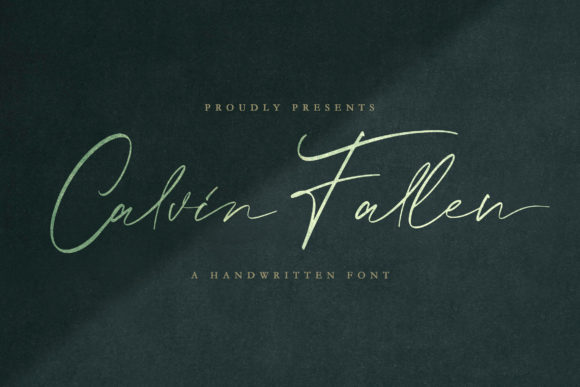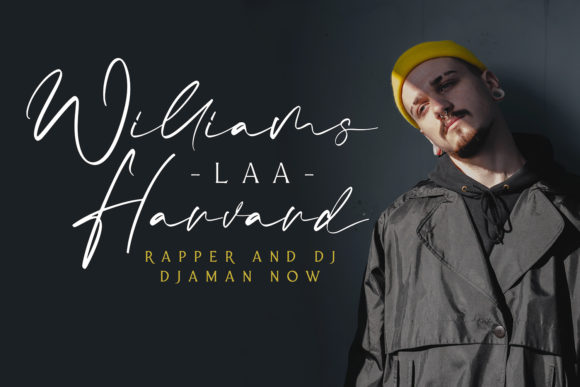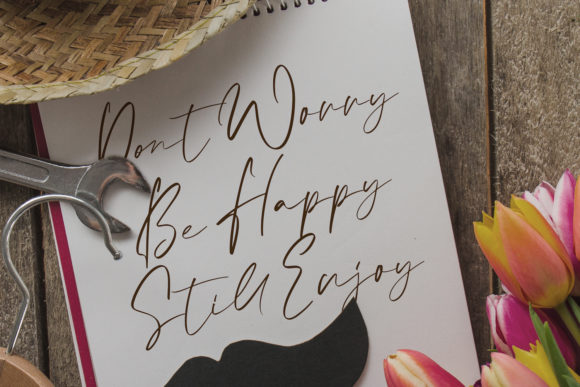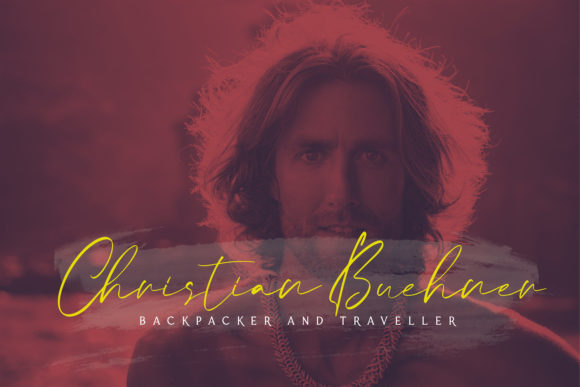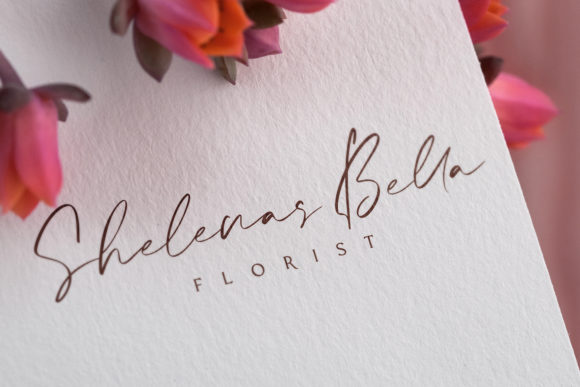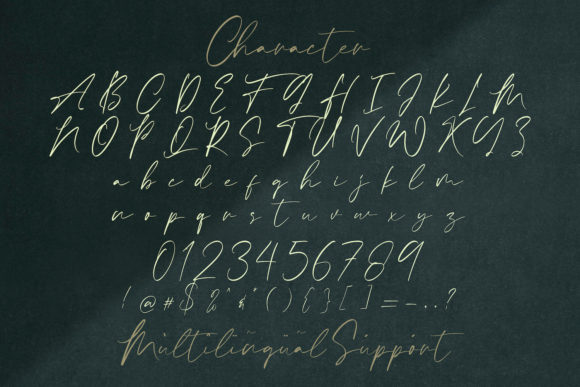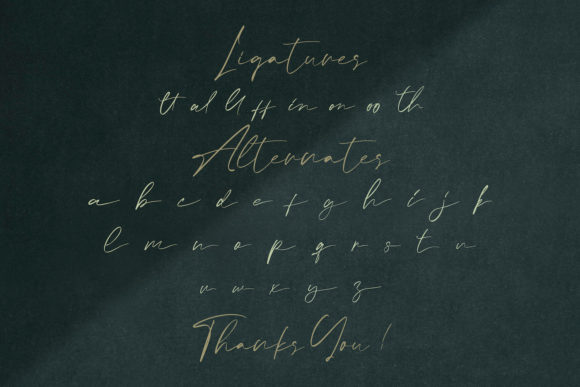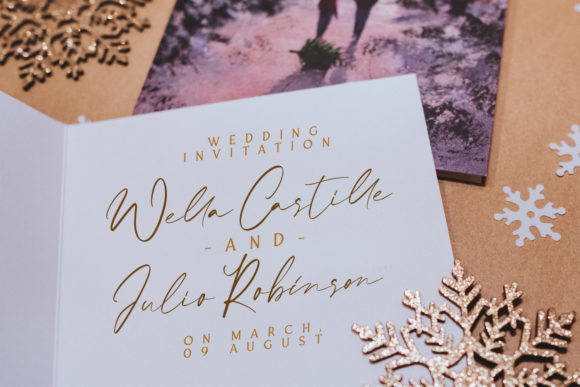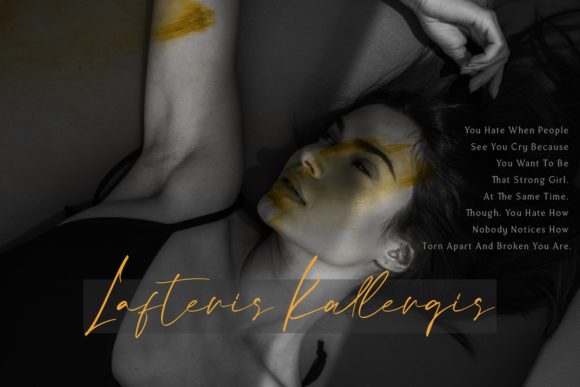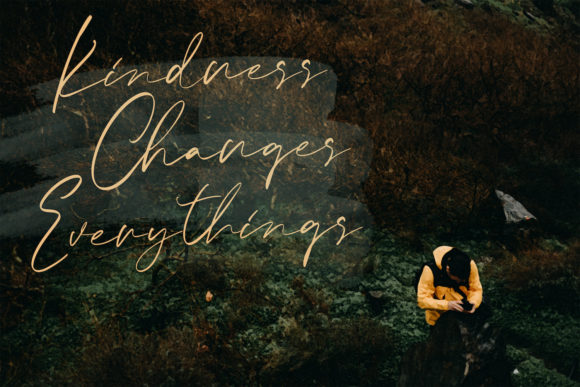
Calvin Fallen Font
Calvin Fallen is a beautiful script font with an incredibly endearing and authentic feel. Use this gorgeous and unique handwritten font to bring any DIY project to life!